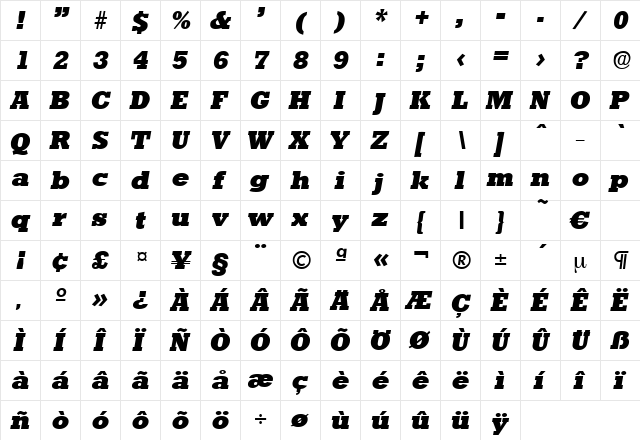
Stafford-ExtraBoldIta Regular
Design Context for Stafford-ExtraBoldIta Typeface
Stafford-ExtraBoldIta offers clean, dependable letterforms without strong stylistic allegiance, making it a practical choice for designers who need flexibility. Its bold stroke weight gives it real presence on the page.